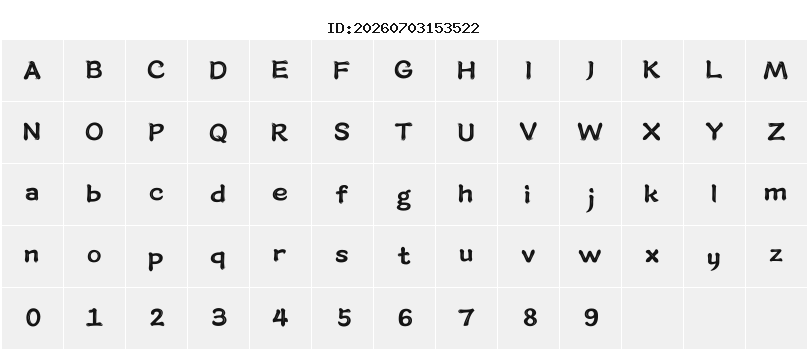
338-上首凤凰体 Preview
• Font Name: 338-上首凤凰体
• Font ID: 338-SSFengHangTi:Version 4.00
• Full Font Name: 338-上首凤凰体
• Version: Version 4.00 July 20, 2024
• PostScript Name: 338-SSFengHangTi
• Character Count: 7567
• Manufacturer: 上首造字
About 338-上首凤凰体.ttf
338-上首凤凰体.ttf is a modern, elegant sans-serif font designed for ultimate readability and visual harmony. Perfect for branding, headlines, web design, and print materials.